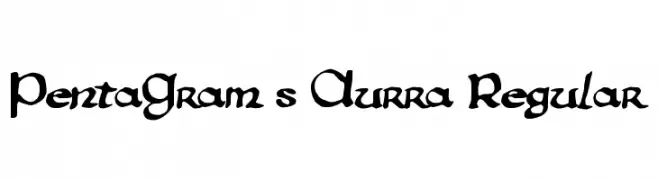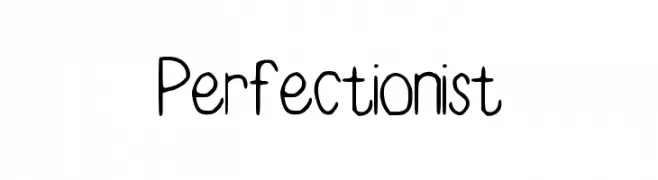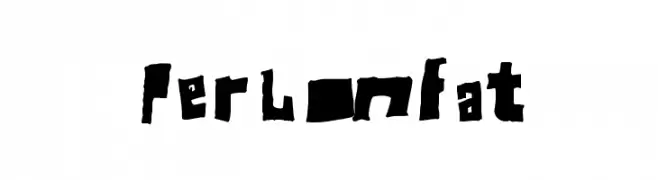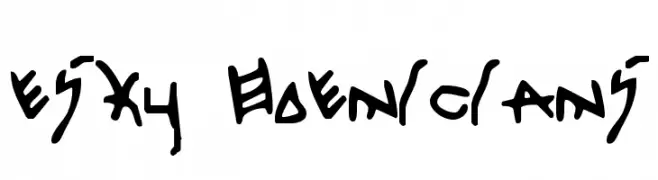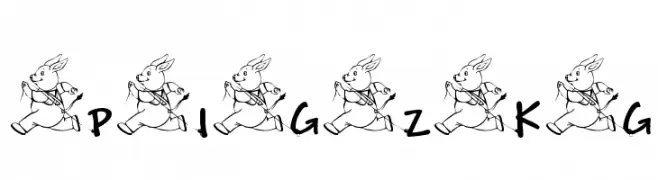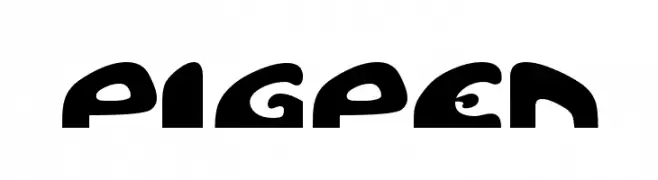
A bold, distressed font with a rugged, textured appearance.
A bold, medieval-inspired font with angular edges and intricate curves.
A playful, handwritten font with tall, narrow letters and a whimsical style.
A bold, playful font with a hand-drawn, irregular style.
A decorative, hand-drawn font with a whimsical and artistic style.
A bold, decorative font with intricate, swirling patterns and a playful, candy-like appearance.
A decorative and avant-garde font with geometric shapes and fragmented lines.
A playful, bold font with rounded, cartoonish characters.
A playful, bold font with rounded, cartoon-like characters and whimsical pig faces.
A playful font with cartoon pig illustrations integrated into each character.